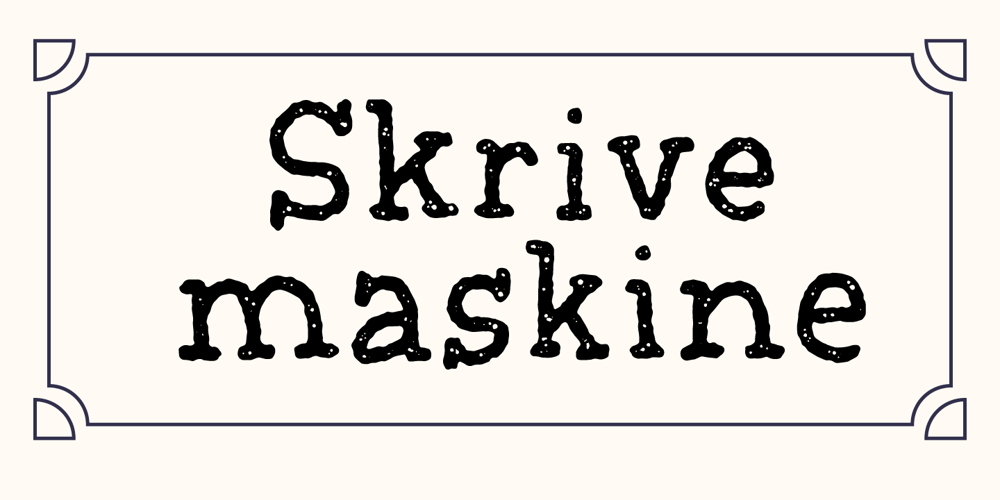
Skrivemaskine
Skrivemaskine font
Skrivemaskine Font Family was designed by published by PizzaDude.dk. Skrivemaskine contains 2 styles and family package options. I’ve always loved typewriter fonts – actually so much that I decided to make my own handdrawn version! I made a Regular version and a clean version without all the spatter. Both versions has contextual alternates (5 different versions of each lowercase letter – that cycles automatically as you type!) a good handful of swashes for both UPPER- and lowercase and an alternate version of “g” and “y” Now, go get the font and write your next letter, imitating using a typewriter! It’ll make your letter, poster, label, sticker – whatever – make look even cooler!